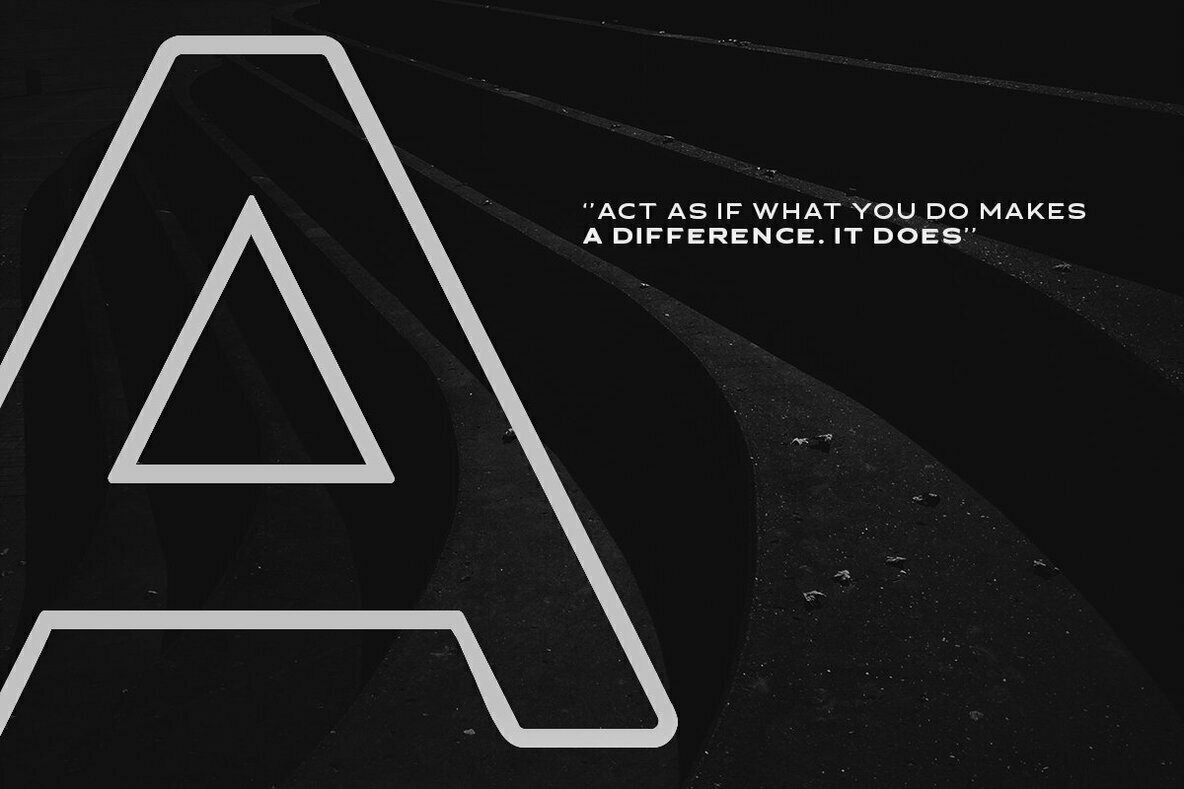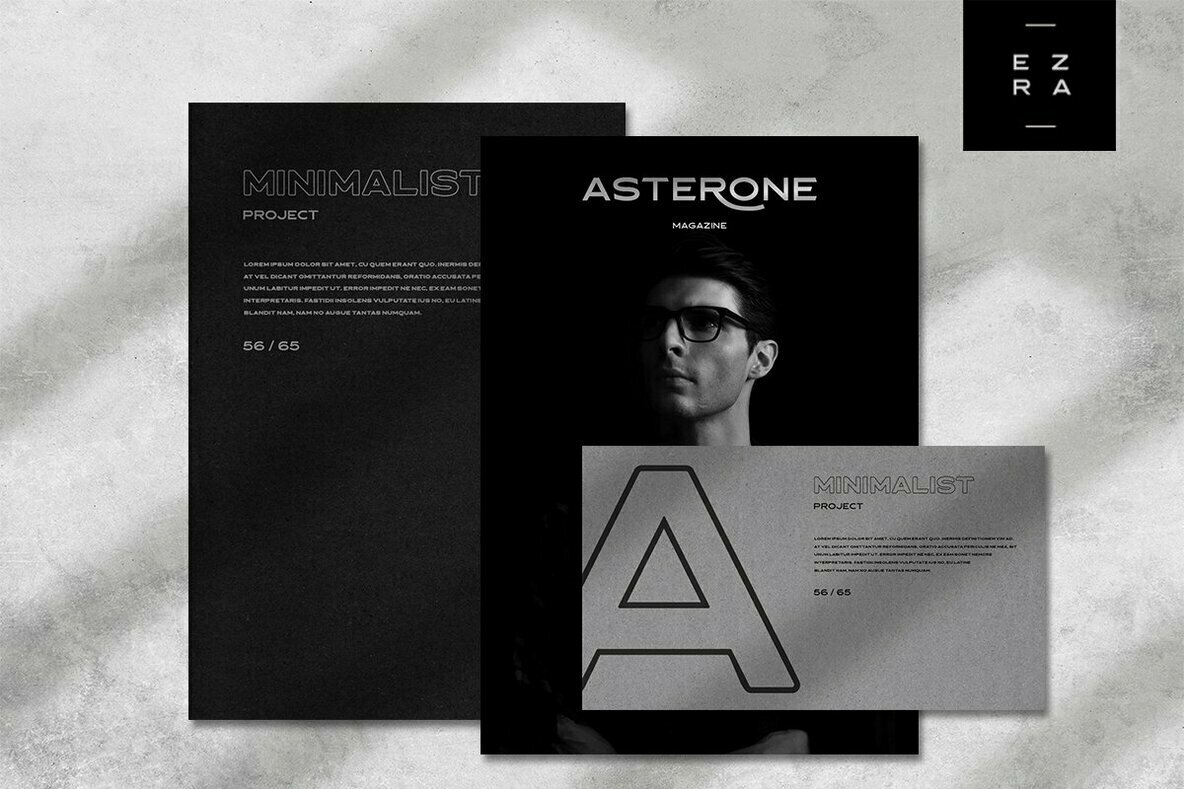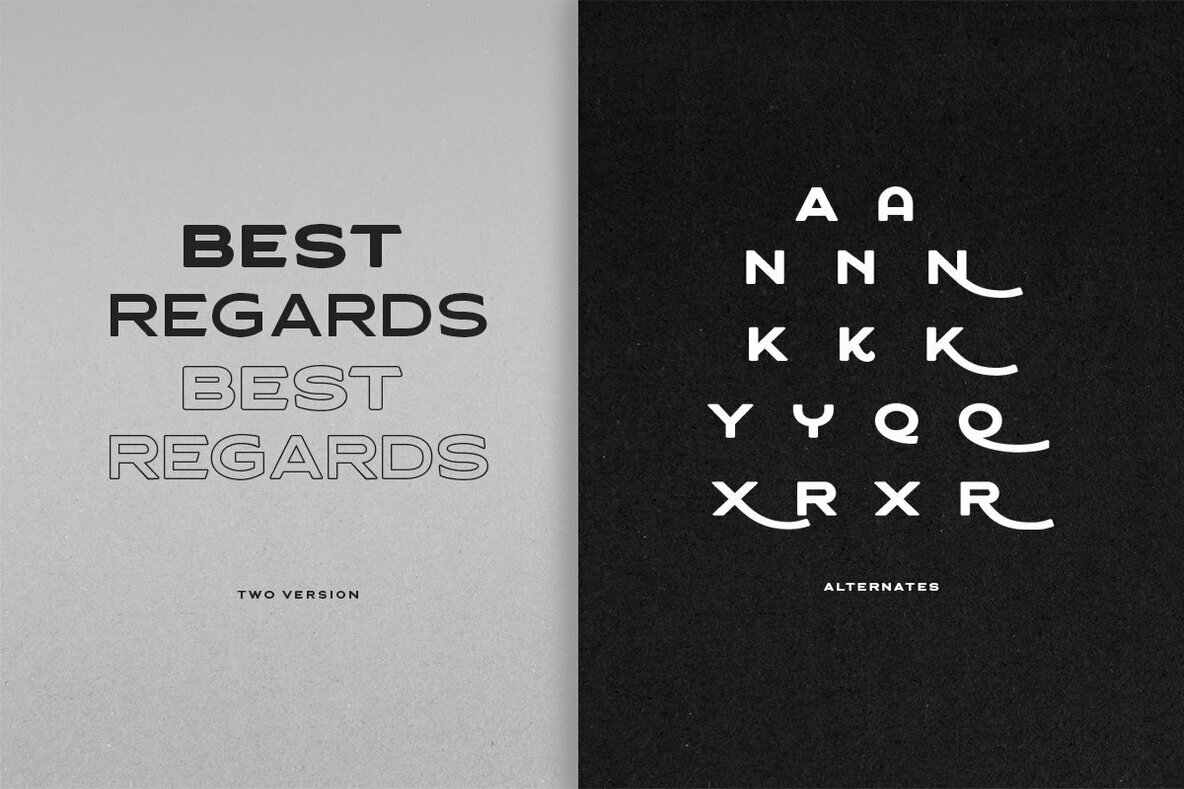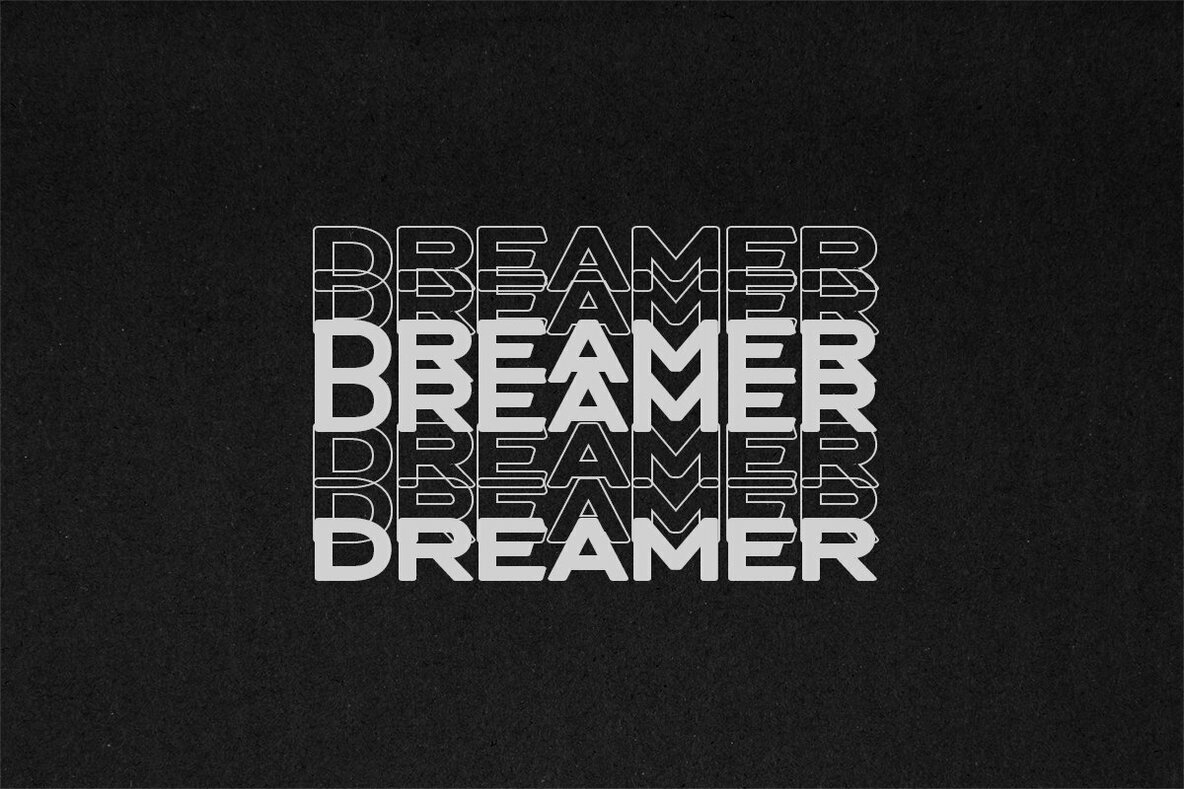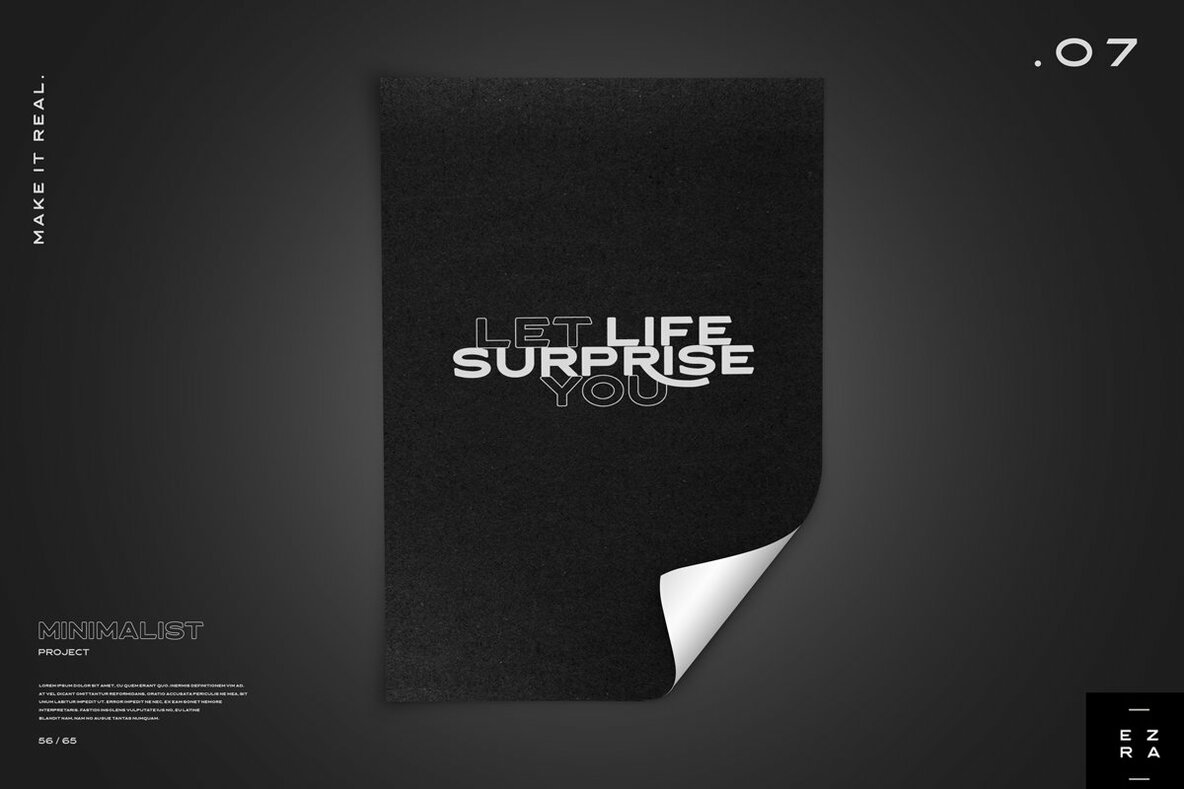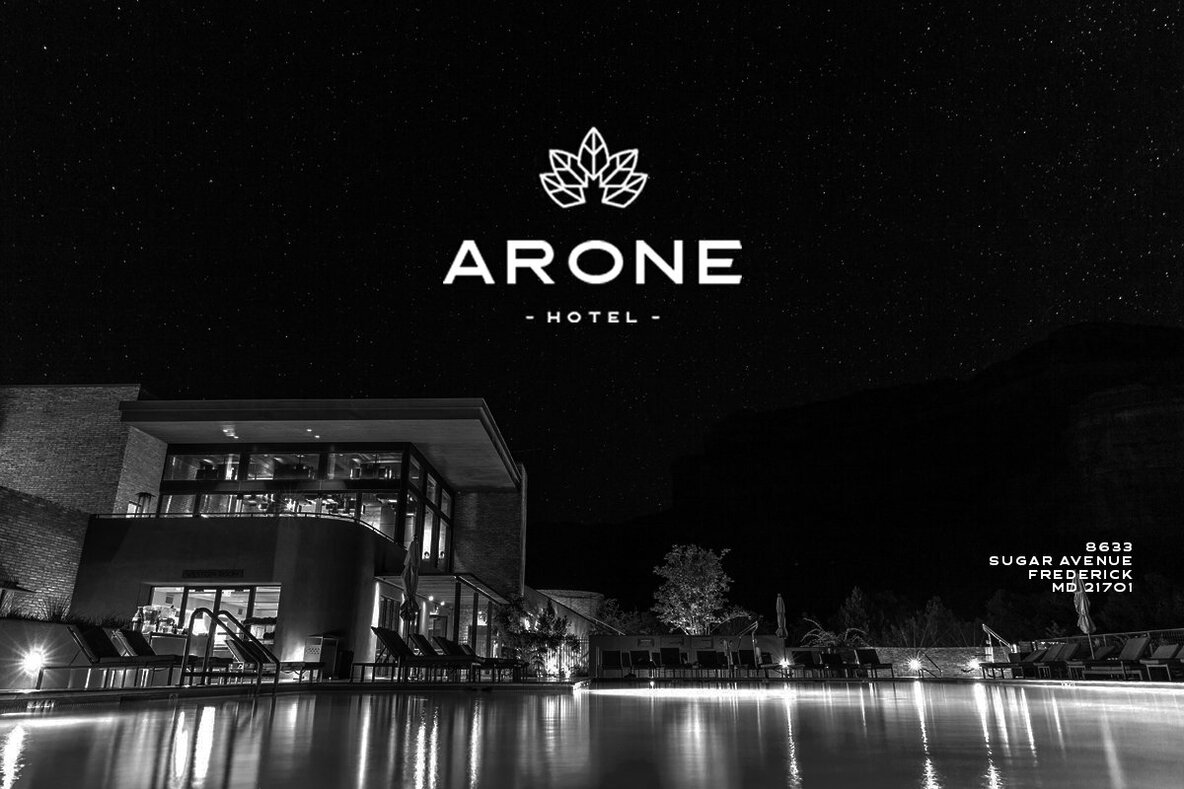
Asterone Font
The Asterone font family from Letterhend Studio offers modern flair coupled with practical functionality for diverse design projects. Whether you're crafting a striking headline, developing a brand logo, or designing packaging, this typeface meets the need with elegant precision. Asterone caters to a range of creative endeavors, enhancing both form and function, making it ideal for apparel, invitations, branding, and advertising.Asterone: A Modern Typeface for Versatile Design